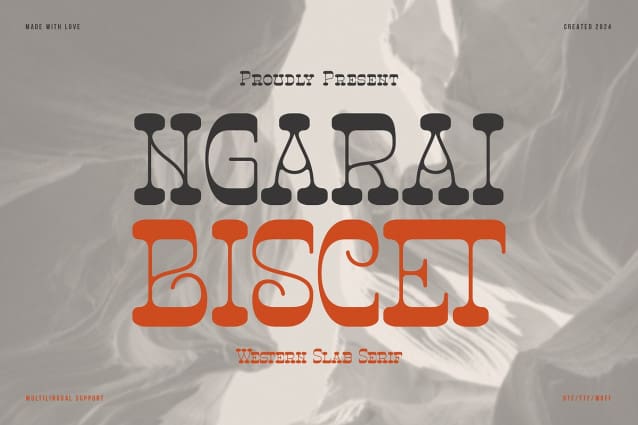
Ngarai Biscet Font
Ngarai Biscet Font | Western Slab Serif, from Denustudios, suitable for any projects such as: logos, branding projects, homeware designs, product packaging, mugs, quotes, posters, shopping bags, t-shirts, book covers, name card, invitation cards, greeting cards, label, photography, watermark, special events, and all your other lovely projects that need a Western Slab Serif taste.